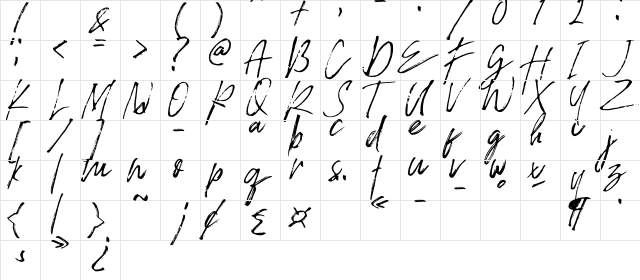
FontBlade Regular
| Designer | Sarwo Edhi Prayitno |
Design Context for FontBlade Typeface
FontBlade is a composed and adaptable typeface that performs quietly and consistently across a wide range of design contexts.